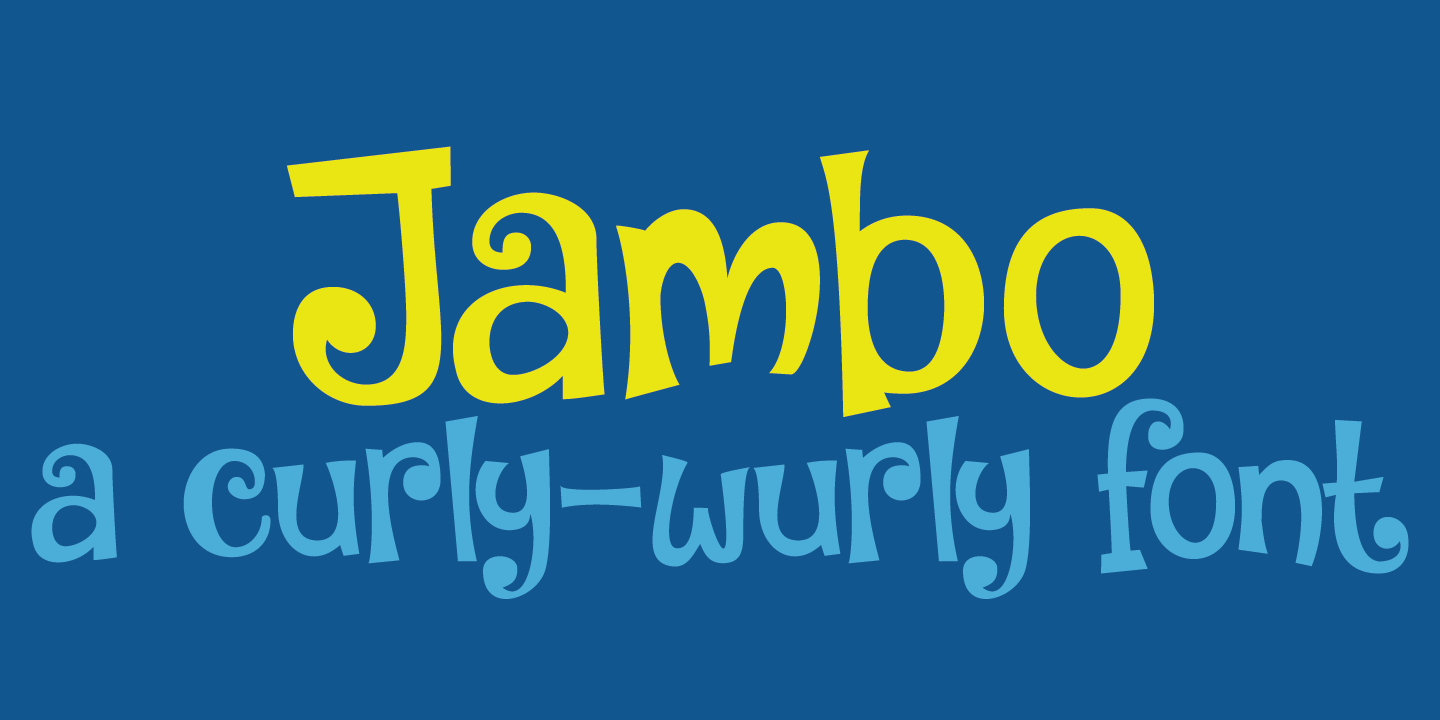
The Jambo Font is an excellent choice for designs that aim for a bold, friendly, and distinctly playful aesthetic, often with an adventurous or celebratory vibe. Imagine it cheering across a vibrant event poster, adding a delightful charm to children's book covers, or bringing an energetic, festive feel to party invitations. It's also perfectly suited for playful social media graphics, impactful headlines for youth-oriented brands, animated show titles, and any project where you want to convey a sense of joy, excitement, and lighthearted fun. Its often rounded forms, unique character, and inviting appearance make it ideal for conveying sincerity and a cheerful spirit.
What makes the Jambo Font so exciting is its ability to instantly infuse a design with a feeling of boundless energy and delightful authenticity. It frequently features soft edges and a subtly organic or hand-drawn quality that makes it feel both unique and incredibly approachable, much like a friendly greeting. This font has a charming and distinctive personality that can instantly elevate your design, making it feel both whimsical and expressively creative. It’s designed to capture attention with its unassuming beauty, ensuring your message is not just seen, but felt with a sense of delightful authenticity.
The Jambo Font family typically might offer a few key weights to best maintain its distinctive character, possibly including stylistic alternates or unique ligatures that enhance its whimsical or playful appeal. While it might not always have an extensive range of weights, its strength lies in its unique visual style and inherent expressiveness. These variations empower designers to create a truly inviting and memorable display, ensuring the Jambo Font Free Download can adapt to a wide array of projects while maintaining its signature, kid-friendly charm.